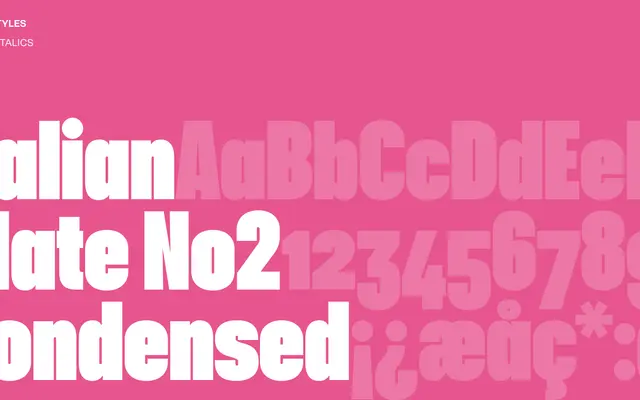
Italian Plate No2 Condensed
A condensed grotesque from Playtype drawing on European plate lettering traditions, suited to tight editorial and display settings.
Part of the Italian Plate No2 family, this condensed cut draws on the visual language of early 20th-century European industrial lettering. The narrow proportions make it well suited to headlines, labels and display use where space is at a premium. The page offers little technical detail, but the name alone signals a specific historical reference point.
The name and condensed nature suggest a narrow grotesque or industrial sans, likely drawing on early 20th-century European plate lettering traditions. Condensed cut of the Italian Plate No2 family.